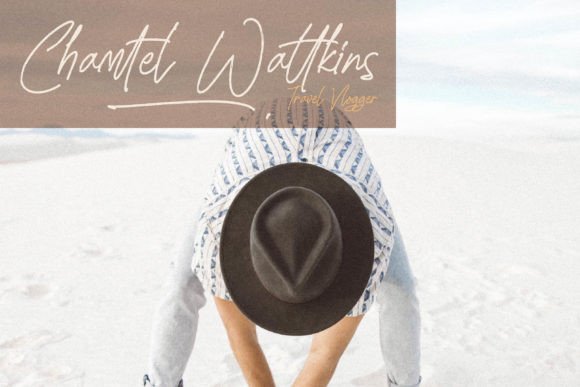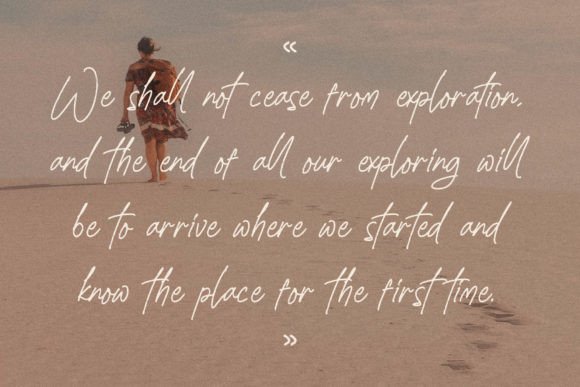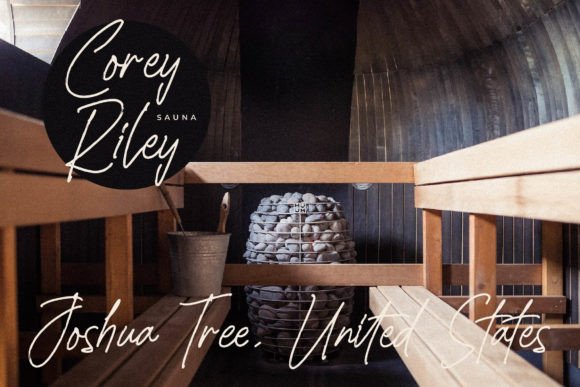
Introduction to Sheylamte Font
Sheylamte – Monoline Handbrush Script font, suitable for any projects such as logos, branding projects, homeware designs, product packaging, mugs, quotes, posters, shopping bags, t-shirts, book covers, name cards, invitation cards, greeting cards, labels, photography, watermark, special events, and all your other lovely projects that need a beautiful script taste.
Key Features of Sheylamte Font
Why Choose Sheylamte Font?
Sheylamte Font offers exceptional quality and versatility, making it a valuable addition to your design toolkit. Whether you’re creating for personal projects or commercial use, Sheylamte Font delivers professional results.